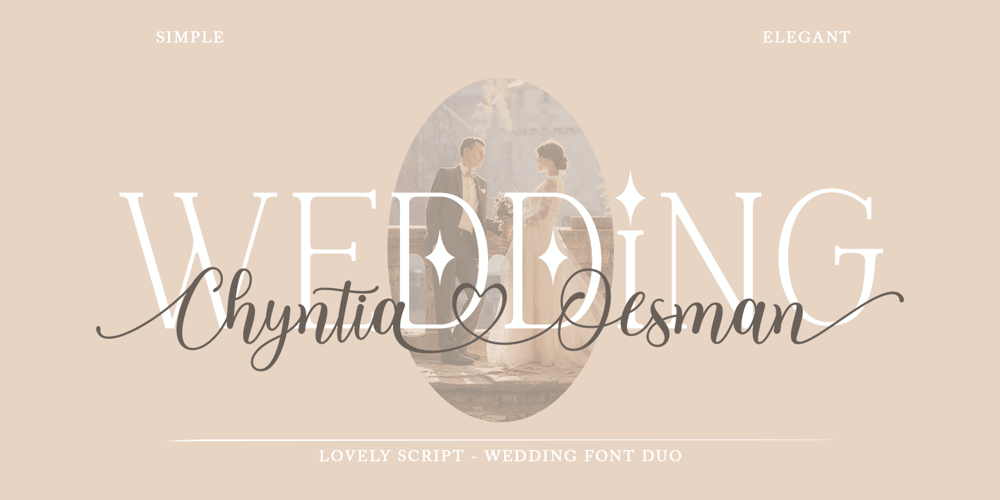
Chyntia Oesman Font Family was designed by Andri Kurniawan and published by Struggle Studio. Chyntia Oesman contains 4 styles and family package options. Chyntia Oesman was built with OpenType features and includes beginning and ending swashes, numbers, punctuation, alternates, ligatures and it also supports other languages.Chyntia Oesman is an organic handwritten font suitable for branding, signatures, wedding invitations, promotions, product packaging and other needs. This font is modern, simple, but still original. You’ll get a full set of lowercase and uppercase letters, numbers and punctuation, multilingual symbols, lowercase start and end swashes, extra ligatures and swashes.